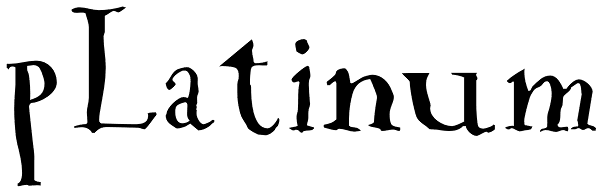
PLatinum
The pLatinum family was created in 1998. Ink, scanner, Fontographer and as a result Regular and Italic styles of pLatinum typeface. Kyrillitsa'99 International type design competition Award winning typeface. The design style is “Irregular Serif...